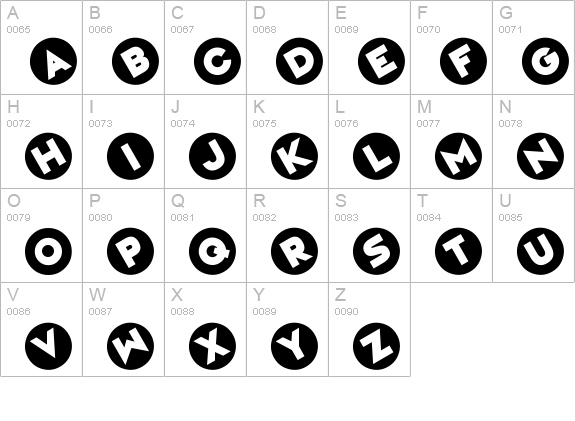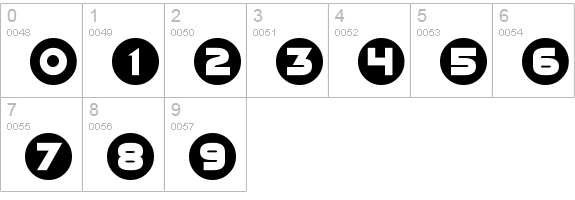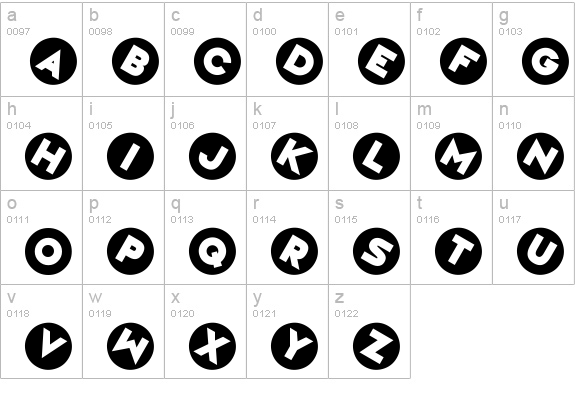
Magic Marbles font is a whimsical and enchanting typeface that will add a touch of magic to your designs. With its swirling curves and playful shapes, this font is perfect for creating eye-catching headlines, invitations, and more. The unique design of Magic Marbles will surely captivate your audience and leave a lasting impression.